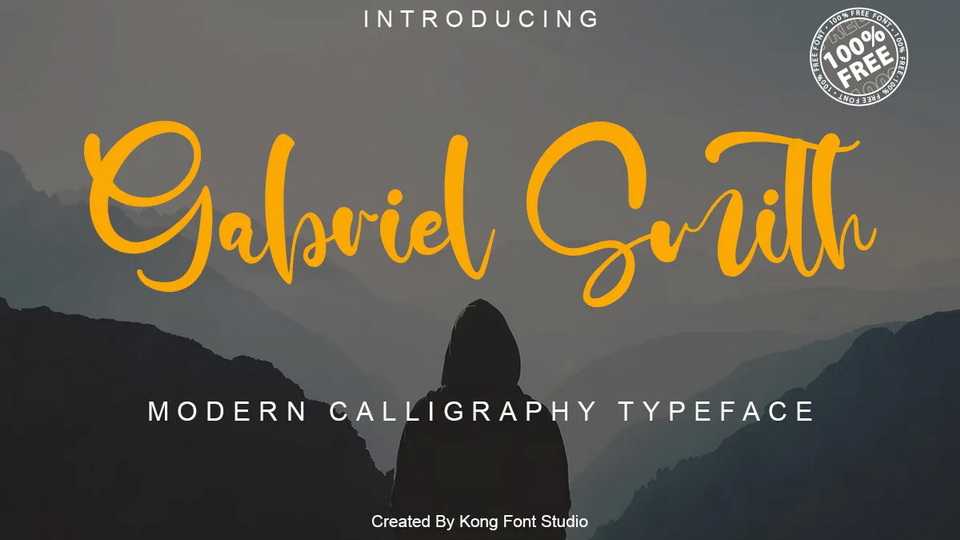
Download Gabriel Smith font, a flowing script with a natural handwritten look. Gabriel Smith font is well suited for adorable invitation for wedding, birthday, special day.